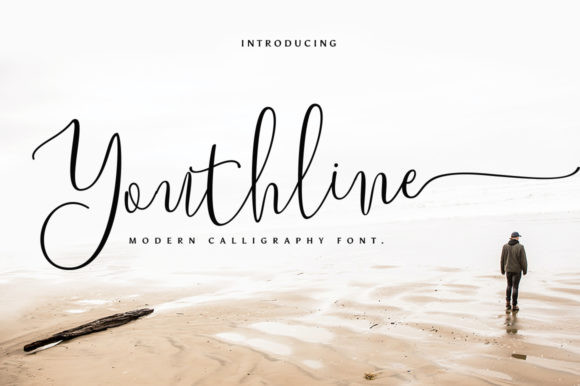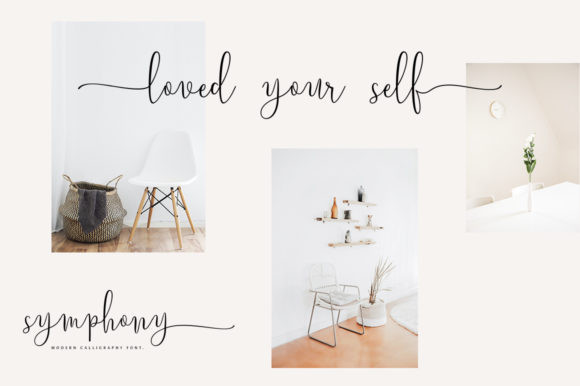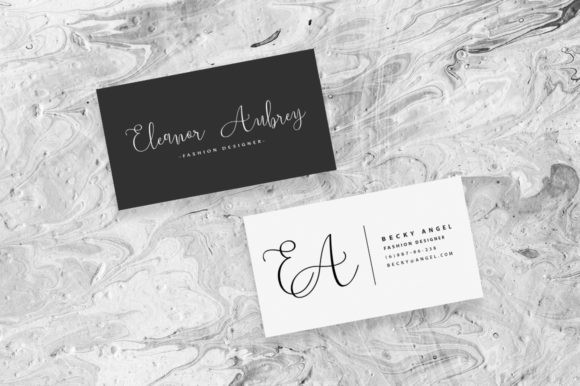
Youthline Font
Youthline is a modern and relaxed handwritten font. It maintains its classy calligraphic influences while feeling contemporary and fresh. Fall in love with it and bring your projects to the highest levels!